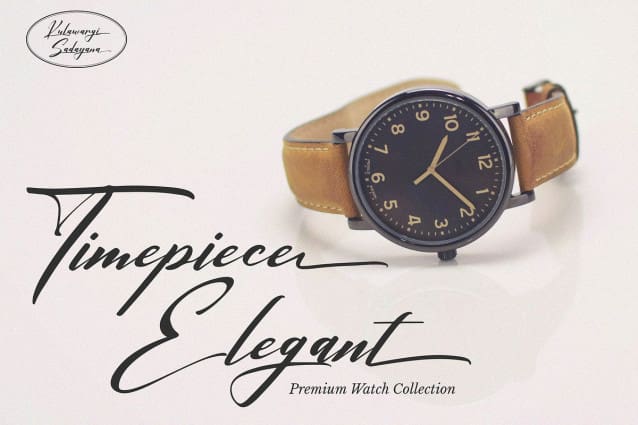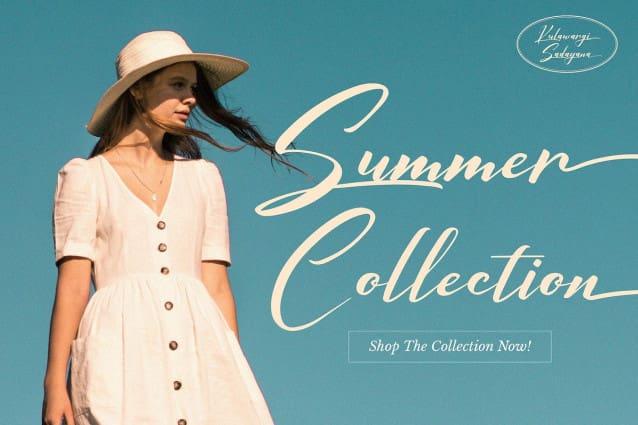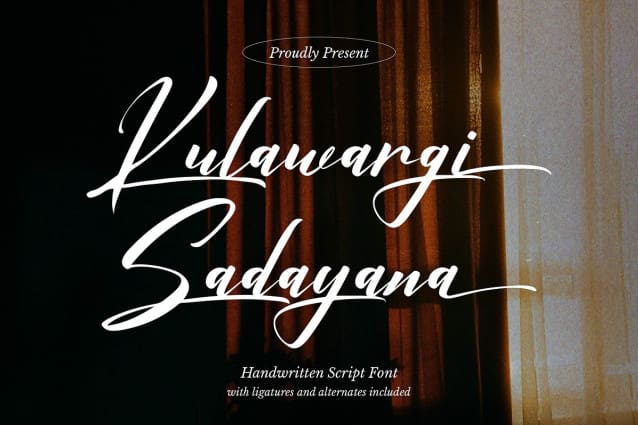
Kulawargi Sadayana Font
Kulawargi Sadayana Font | Script Font, from Denustudios, suitable for any projects such as: logos, branding projects, homeware designs, product packaging, mugs, quotes, posters, shopping bags, t-shirts, book covers, name card, invitation cards, greeting cards, label, photography, watermark, special events, and all your other lovely projects that need a beautiful script taste.